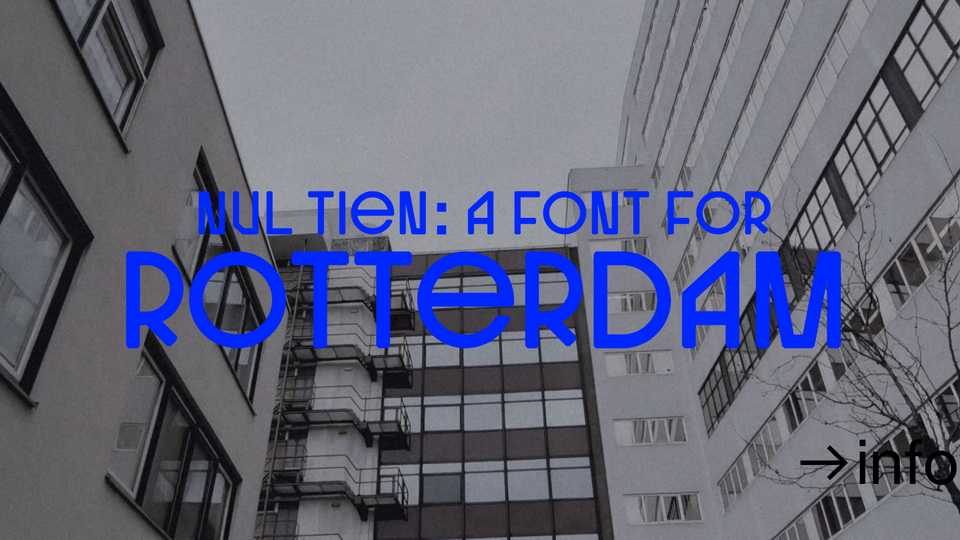
Download NulTien font, a display typeface inspired by the architecture and the culture of Rotterdam. NulTien font is a study on typography and the city’s structural forms.